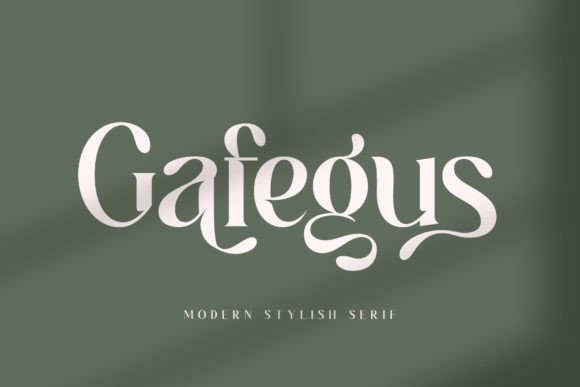
Gafegus Font
Introducing Gafegus, the epitome of elegance and sophistication, a font that weaves a spell of visual enchantment. Its refined serifs and sweeping curves evoke a sense of timeless beauty, while its modern design ensures a contemporary edge.
Embark on a typographic journey with Gafegus, a font that effortlessly elevates your creative projects. Its versatility knows no bounds, from crafting captivating Christmas cards that warm hearts to designing logos that exude professionalism, from creating alluring magazine layouts that captivate readers to packaging products with a touch of luxury.
With Gafegus, your words take on a life of their own, commanding attention and leaving a lasting impression. Its clean lines and subtle curves add a touch of class to every project, ensuring that your designs stand out from the crowd. Whether you're a seasoned designer or just starting your creative journey, Gafegus is your perfect companion, guiding you towards typographic excellence.
Embrace the allure of Gafegus, let it ignite your creativity, and transform your designs into masterpieces. Its timeless elegance and modern charm will leave your audience spellbound, creating a visual symphony that resonates with hearts and minds.
Dare to be different, dare to be captivating, dare to let Gafegus elevate your designs to new heights. Experience the magic of typography and let your creativity soar with Gafegus as your trusted guide.